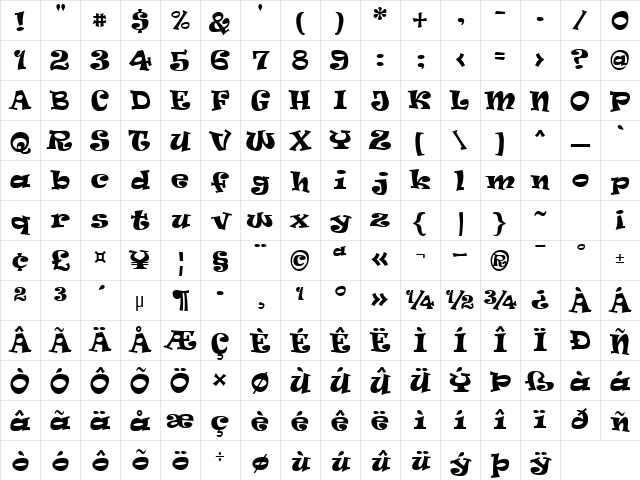
Complete Ravie Regular glyph index. Displaying only characters natively supported by Ravie Regular font.
Ravie is a composed and adaptable typeface that performs quietly and consistently across a wide range of design contexts.